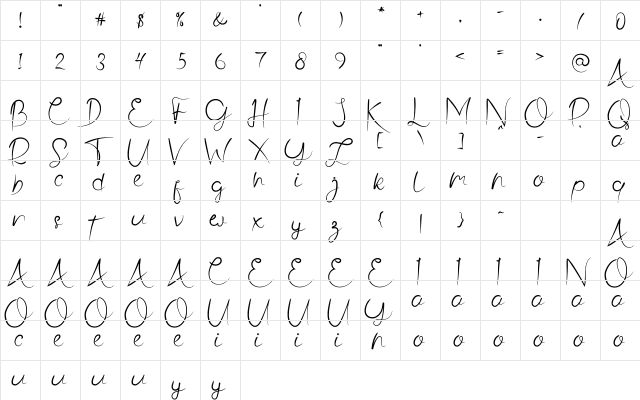
Ristty Style Regular
| Designer | Doni Dorra |
Design Context for Ristty Style Typeface
Ristty Style is a composed and adaptable typeface that performs quietly and consistently across a wide range of design contexts.